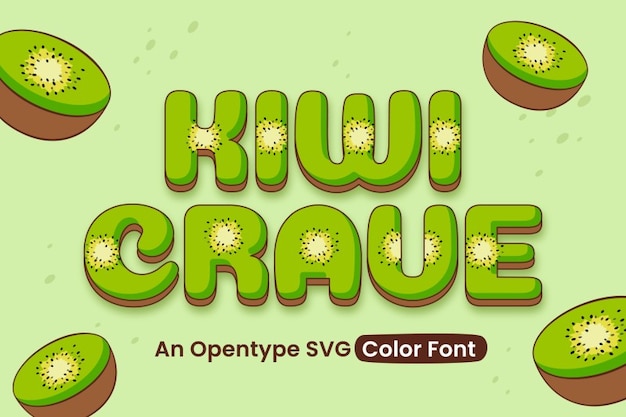
"Kiwi Crave" is a bold 3D font bursting with the juicy essence of kiwi fruit. Its layered, textured design mimics the vibrant colors and seeds of a sliced kiwi, creating a playful, refreshing vibe. Perfect for food branding, tropical themes, or creative projects, this font adds a splash of fruity fun and a mouthwatering visual appeal to any design.